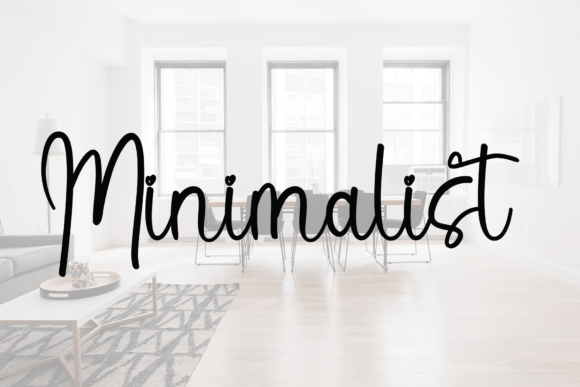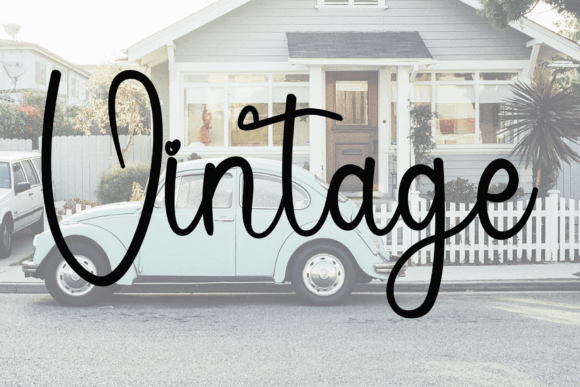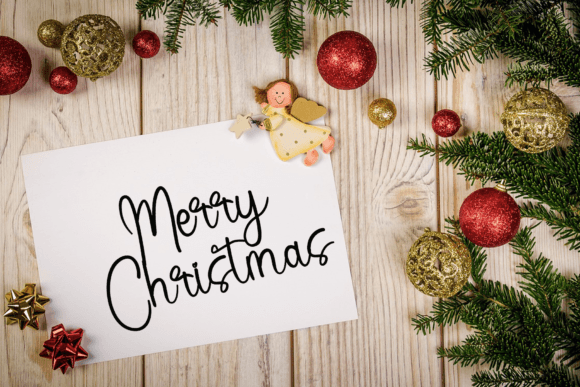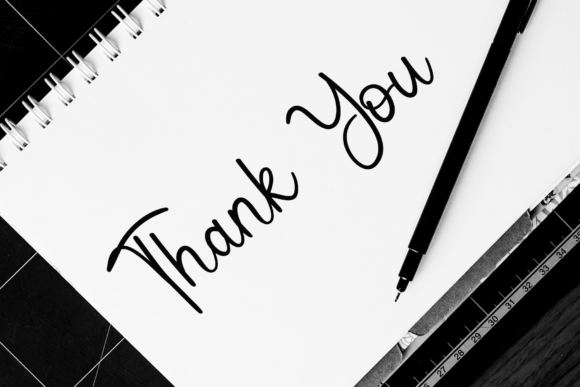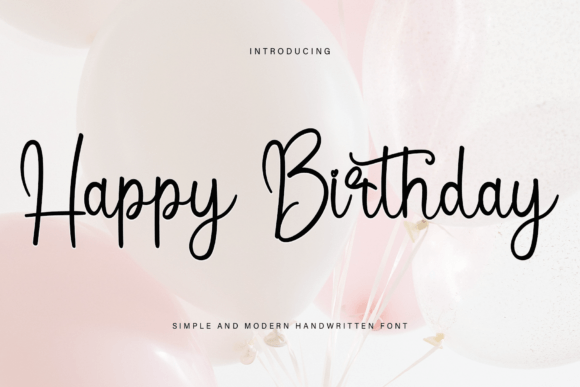
Introducing Happy Birthday Font: The Perfect Choice for Elegant Designs
Are you looking for a font that exudes elegance and sophistication? Look no further than the Happy Birthday font! This beautiful, thin lettered and simple script font is perfect for creating stunning wedding invitations, gorgeous stationery art, eye-catching social media posts, and much more.
What Makes Happy Birthday Font So Special?
Happy Birthday font is a unique and ravishing script font that is sure to capture the attention of your audience. Its thin lettering and simple design make it a versatile font that can be used for a wide range of design projects. Whether you’re a designer, crafter, or DIY enthusiast, this font is sure to become a favorite in your collection.
Uses for Happy Birthday Font
The possibilities are endless when it comes to using Happy Birthday font. Here are just a few ideas to get you started:
- Wedding Invitations: Create beautiful and elegant wedding invitations that set the tone for the big day. The Happy Birthday font is perfect for formal and informal wedding invitations alike.
- Stationery Art: Add a touch of elegance to your stationery with Happy Birthday font. Use it to create gorgeous notecards, greeting cards, and letters.
- Social Media Posts: Make your social media posts stand out with Happy Birthday font. Use it to create eye-catching graphics, quotes, and announcements.
- DIY Projects: Happy Birthday font is perfect for DIY enthusiasts who love to craft and create. Use it to add a personal touch to your projects, such as handmade cards, gift tags, and more.
Why Designers and Crafters Love Happy Birthday Font
Designers and crafters love Happy Birthday font for many reasons. Here are just a few:
- Elegant Design: The Happy Birthday font has an elegant and sophisticated design that is perfect for creating high-end designs.
- Versatility: This font is versatile and can be used for a wide range of design projects, from wedding invitations to social media posts.
- Easy to Read: The thin lettering and simple design of Happy Birthday font make it easy to read, even at small sizes.
- Unique Style: Happy Birthday font has a unique style that sets it apart from other script fonts. It’s sure to add a touch of personality to your designs.
Tips for Using Happy Birthday Font
Here are a few tips for using Happy Birthday font:
- Pair it with Other Fonts: Happy Birthday font pairs well with other fonts, such as bold sans-serif fonts and decorative script fonts.
- Use it for Headings: Happy Birthday font is perfect for headings and titles. Use it to add a touch of elegance to your designs.
- Experiment with Colors: Happy Birthday font looks great in a variety of colors. Experiment with different colors to find the one that works best for your design.
In conclusion, Happy Birthday font is a beautiful and elegant script font that is perfect for designers and crafters. Its thin lettering and simple design make it versatile and easy to use. Whether you’re creating wedding invitations, stationery art, social media posts, or DIY projects, Happy Birthday font is sure to add a touch of sophistication and elegance. So why wait? Fall in love with Happy Birthday font and start creating stunning designs today!